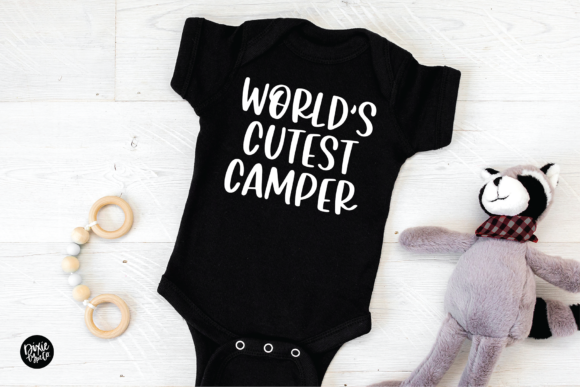
Amora Brush Font
Amora Brush is a cute, friendly and cool paint brushed handwritten font. Whatever the topic, this font will be a wonderful asset to your font library, as it has the potential to enhance any creation.